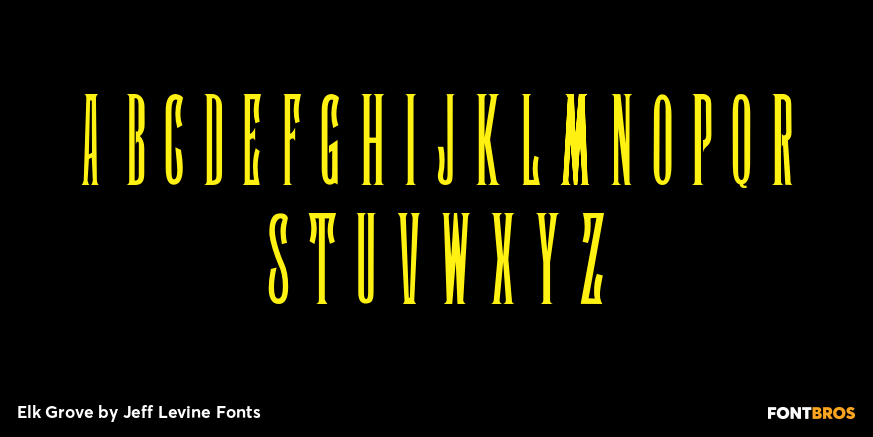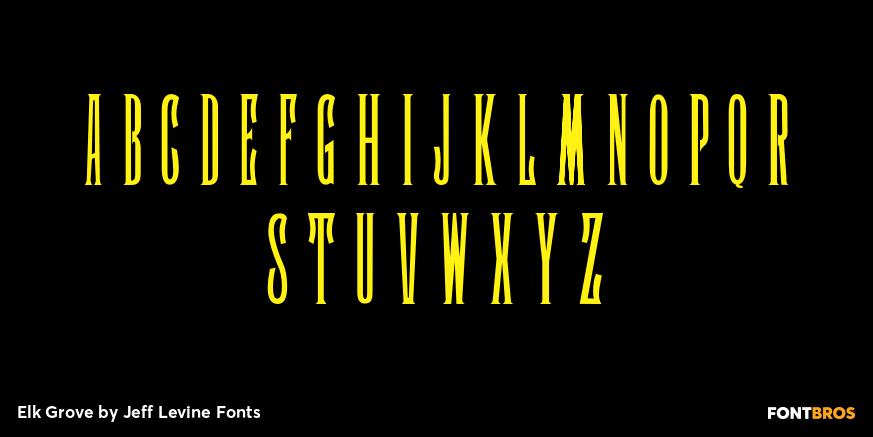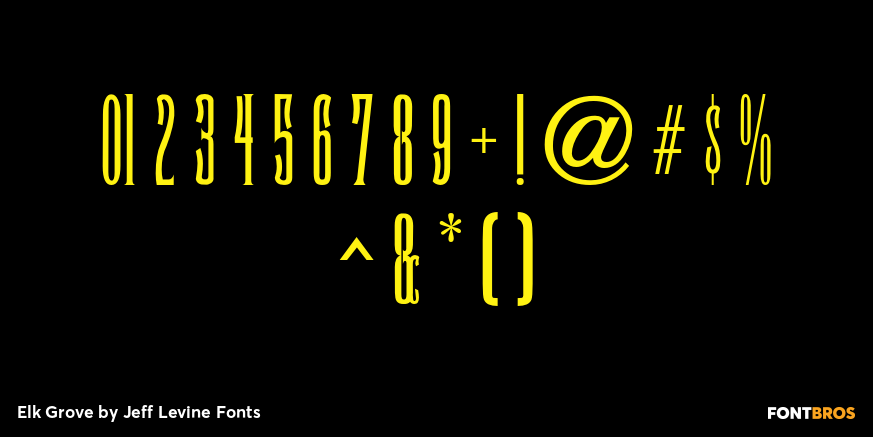
Elk Grove
Elk Grove JNL is both historical and original in design. Inspired by a small sampling of letters from an 1800s wood type called Facade, Jeff Levine created the remaining characters. Because of its highly condensed design, it's best when used in large headlines and short phrases.